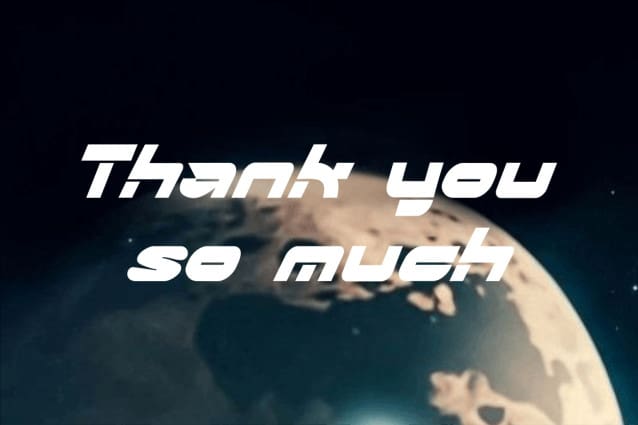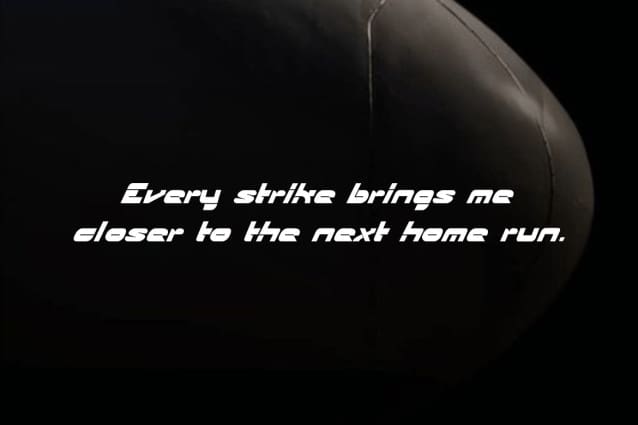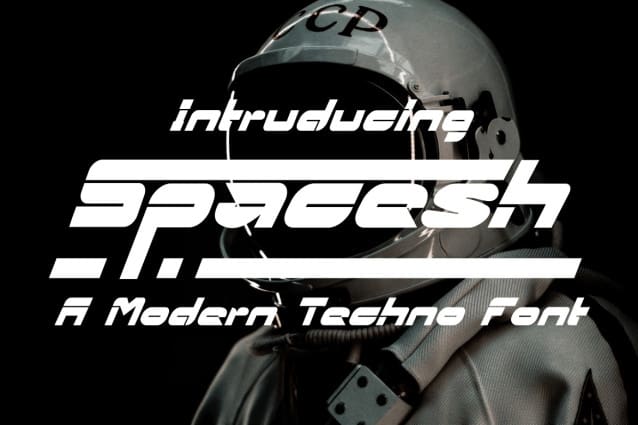
Spacesh Futuristic Font
Spacesh Futuristic Font – Modern Techno Font is a modern and authentic font. Perfect for professional needs and product branding, this font is suitable for any branding project such as quotes, logos, blog headers, posters, ribbons, letters, invitations, stationery, etc… Designed to be versatile and flexible that can be used on a variety of projects and media. extraordinary in a variety of contexts.